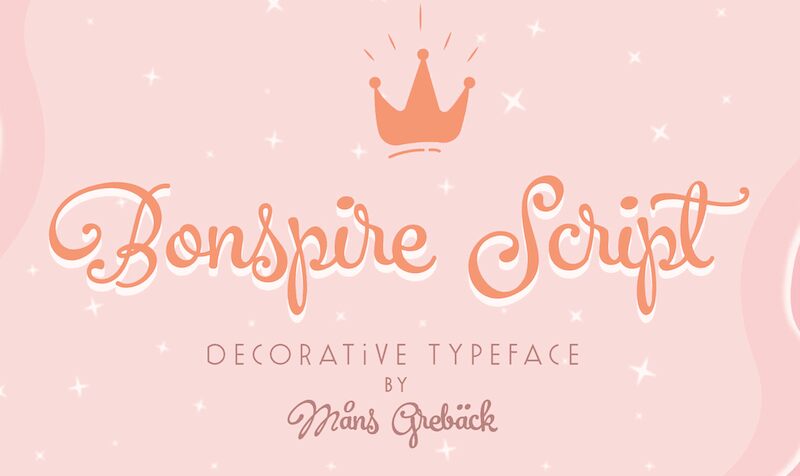
Bonspire Swash PERSONAL Regular
Bonspire Swash, a stunning creation by font designer Mans Greback, is a calligraphy font that exudes elegance and charm. With its semi-light weight and captivating swashes, Bonspire Script is perfect for adding a touch of whimsy to any project.
Its lively strokes and optimistic flair make it an excellent choice for heartfelt invitations or eye-catching advertisements. Whether you're designing wedding stationery, creating social media graphics, or crafting a logo for a high-end brand, Bonspire Swash will elevate your work with its playful sophistication.
Embrace the beauty of this font and let your creativity soar!